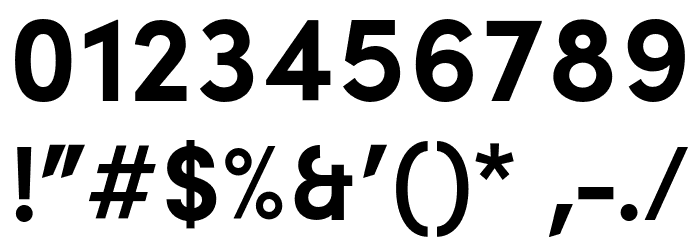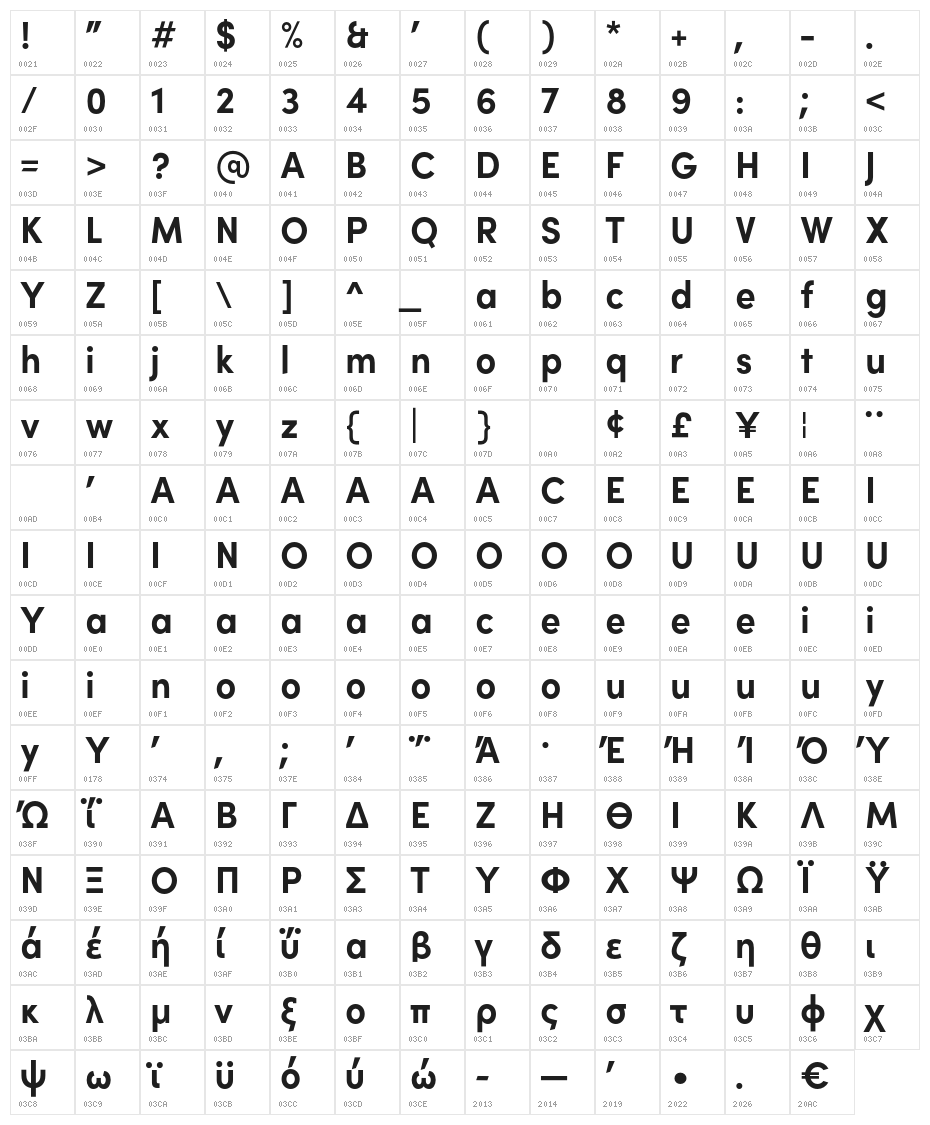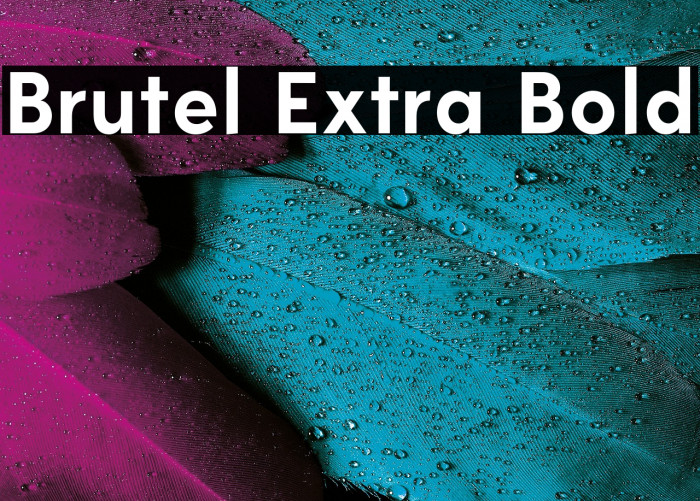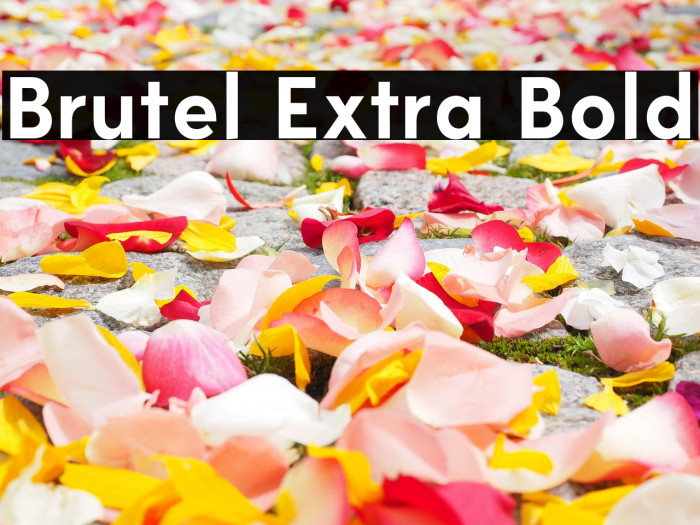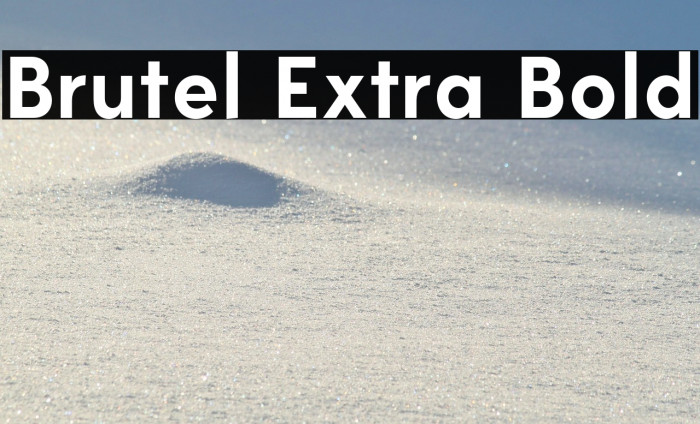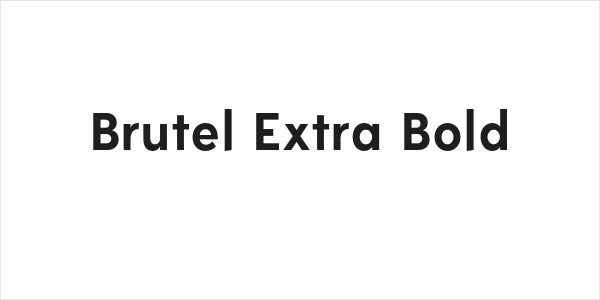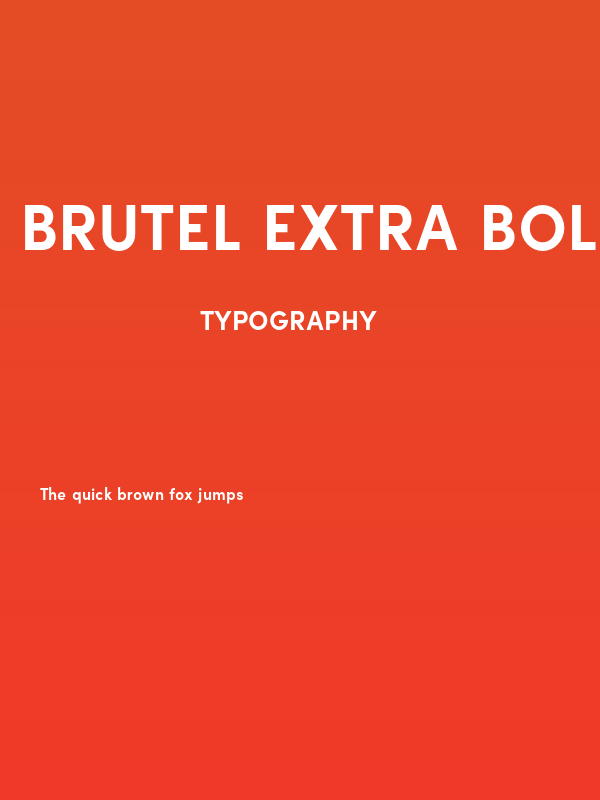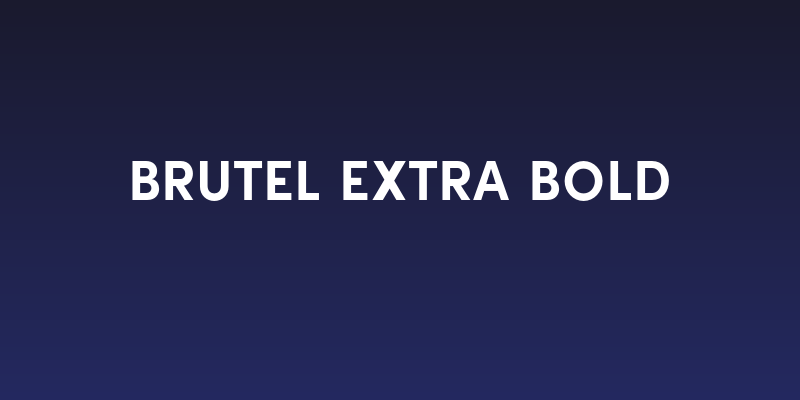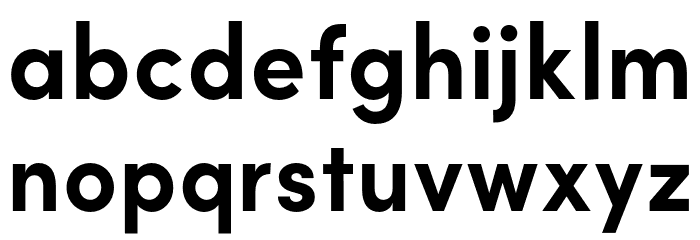
Brutel Extra Bold Font
Brutel Extra Bold Description
This typeface features a bold and assertive design, characterized by thick strokes and a strong presence. The letters are evenly spaced, providing a clean and modern appearance. The uppercase and lowercase letters maintain a consistent weight, contributing to a cohesive look. The numerals are clear and easily distinguishable, while the special characters are well-integrated into the overall design. This font is highly legible and versatile, making it suitable for a variety of applications.
| Proposed Projects | Ideal for branding, advertising, headlines, and any project requiring a strong visual impact. |